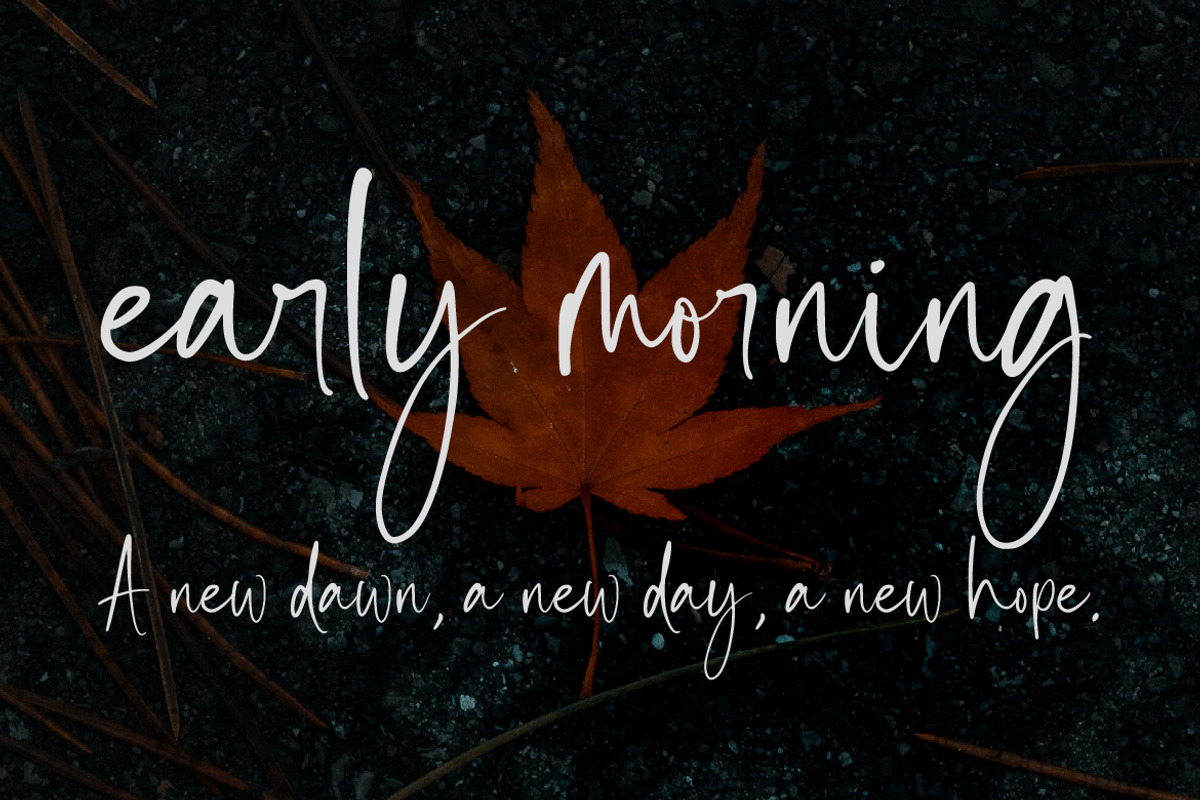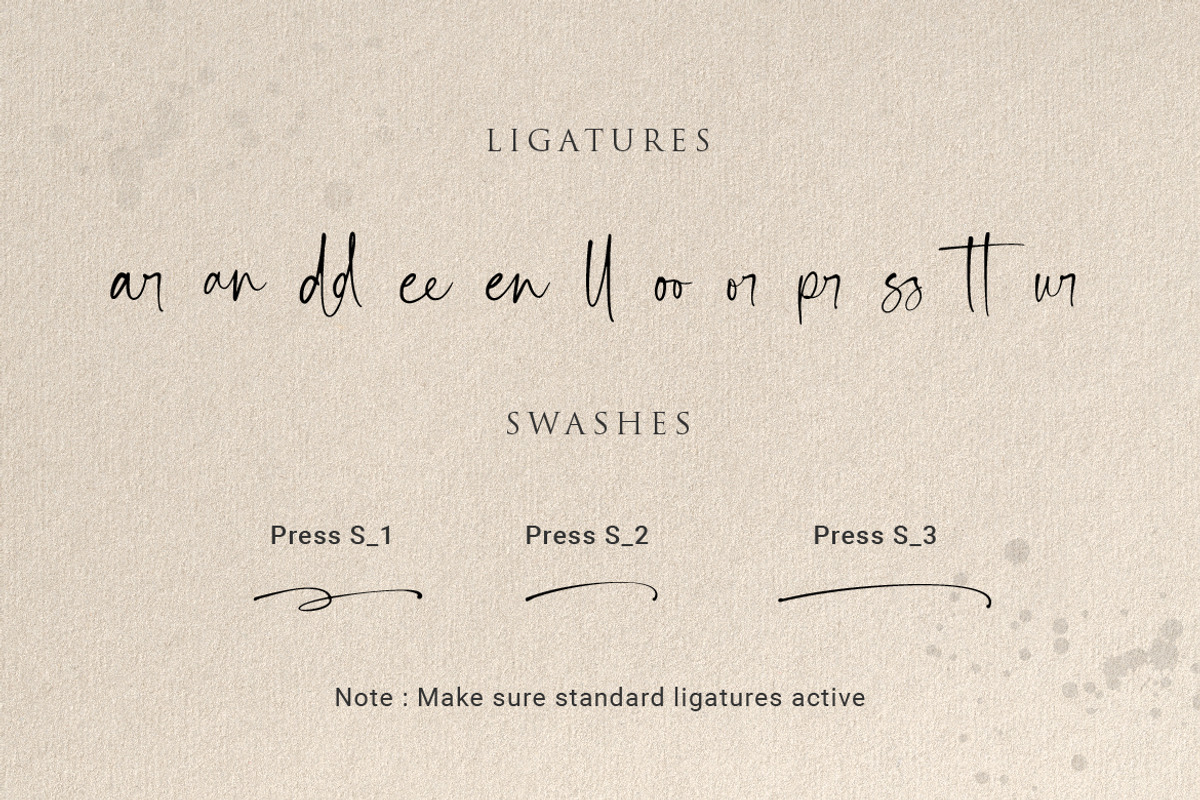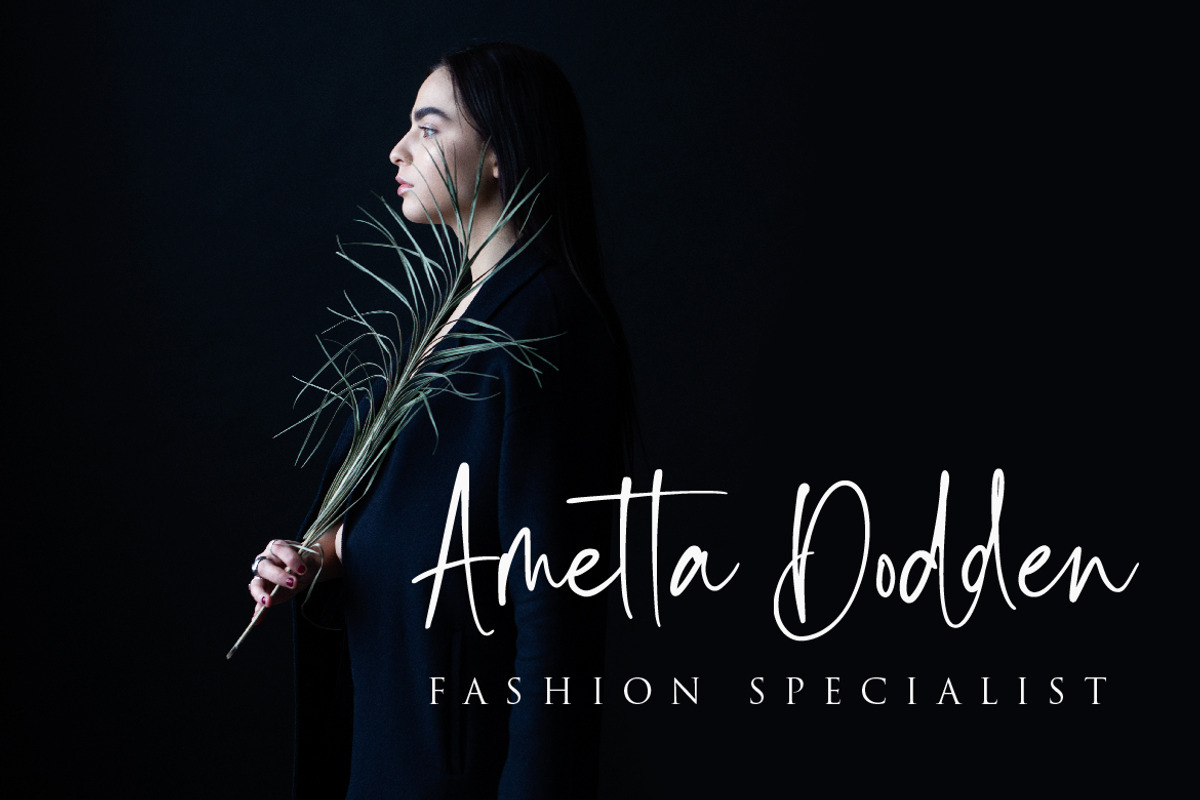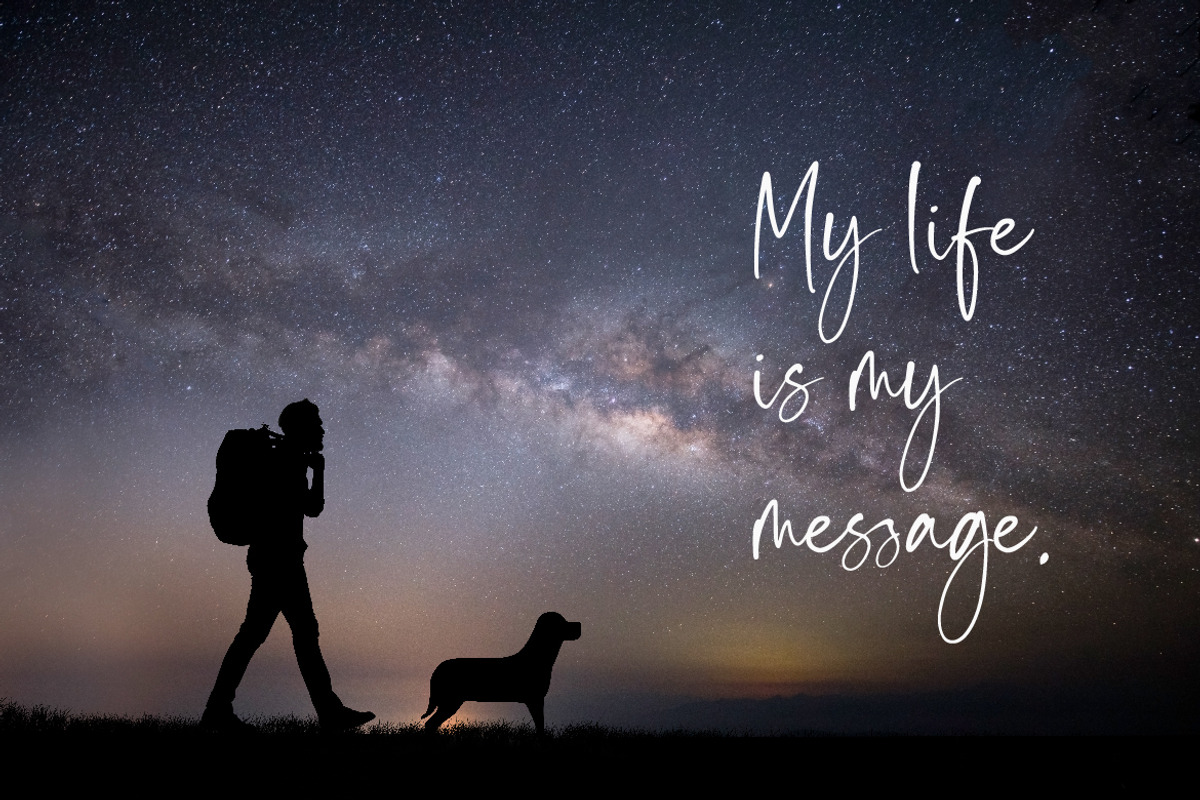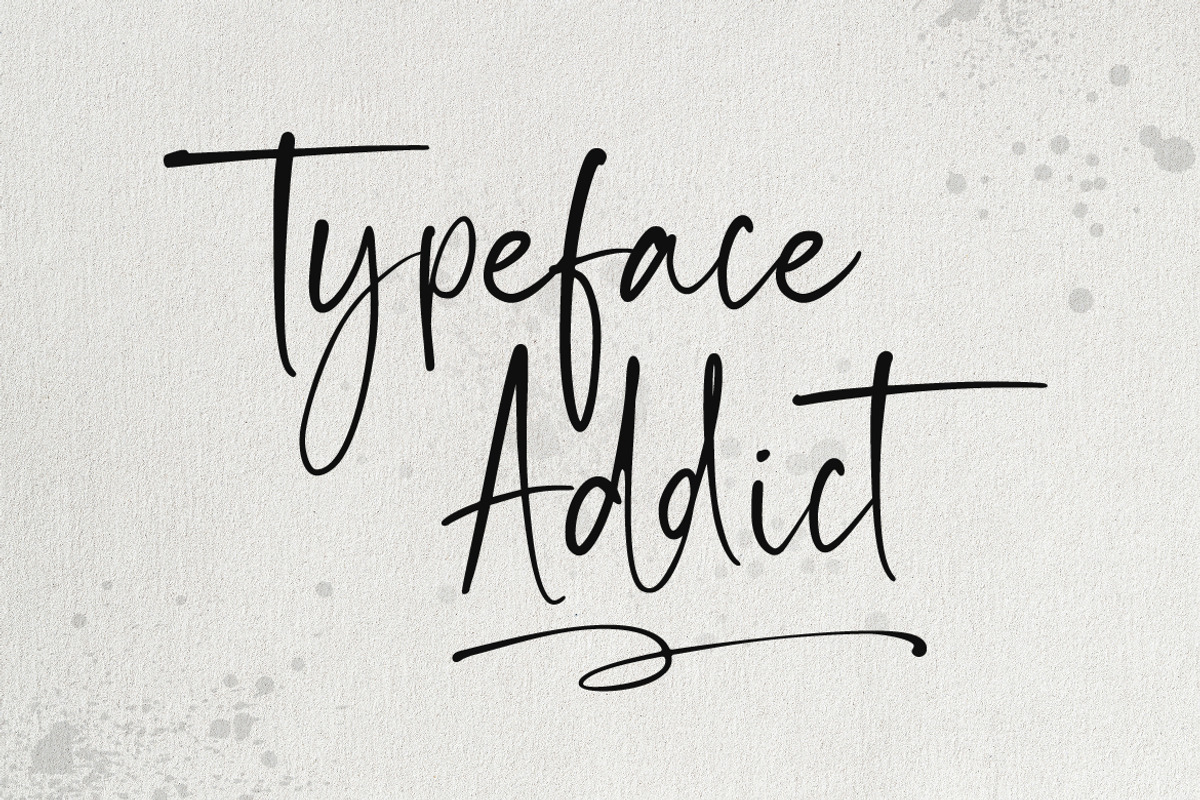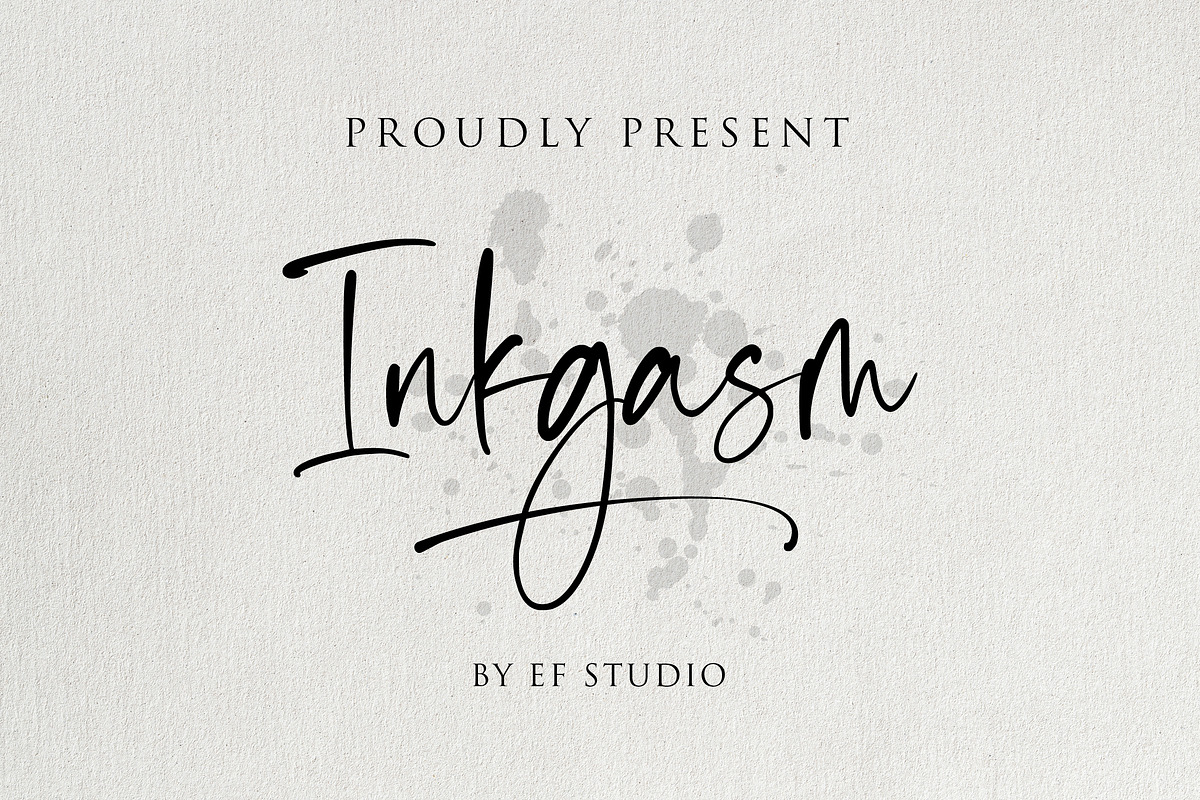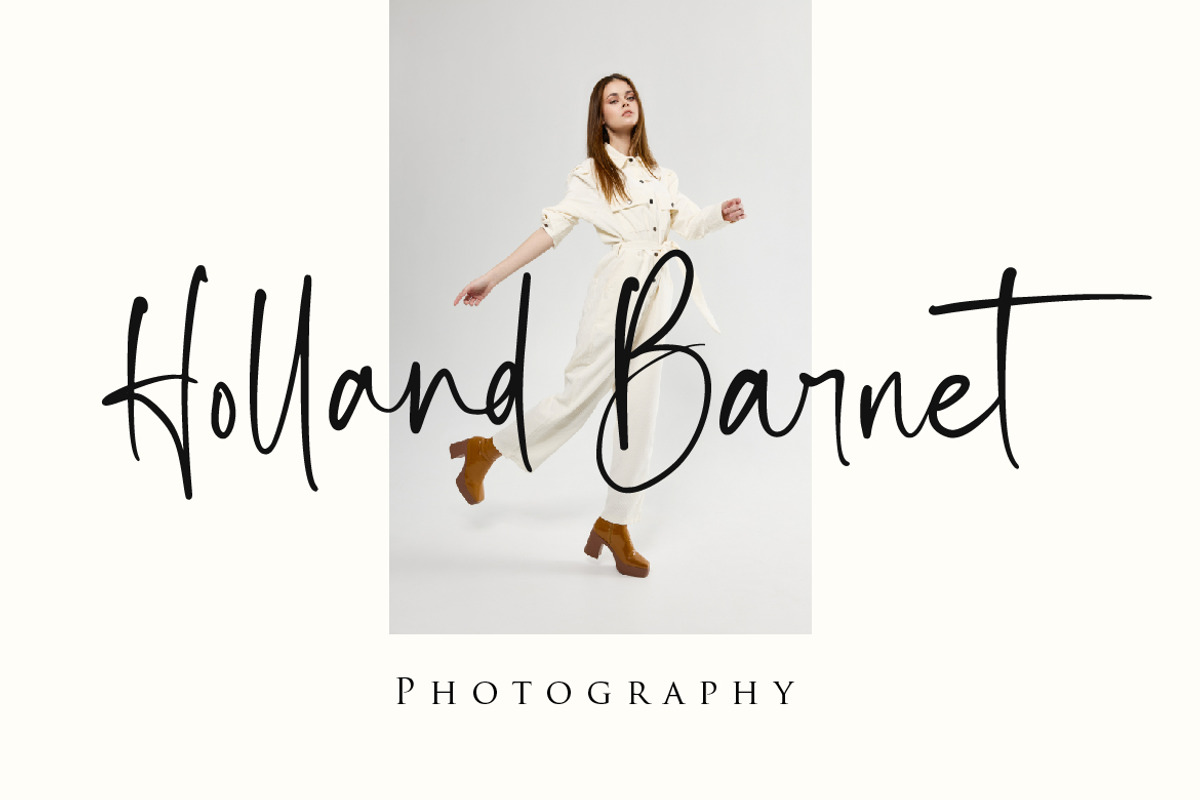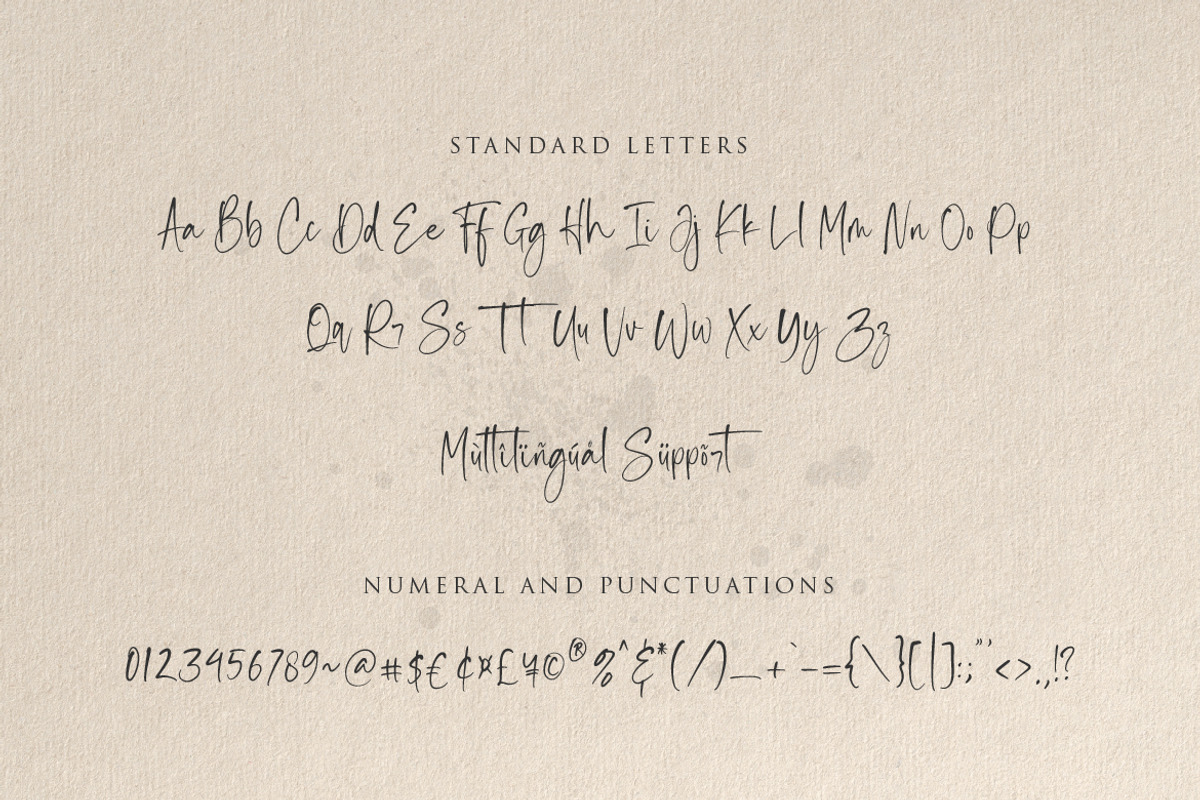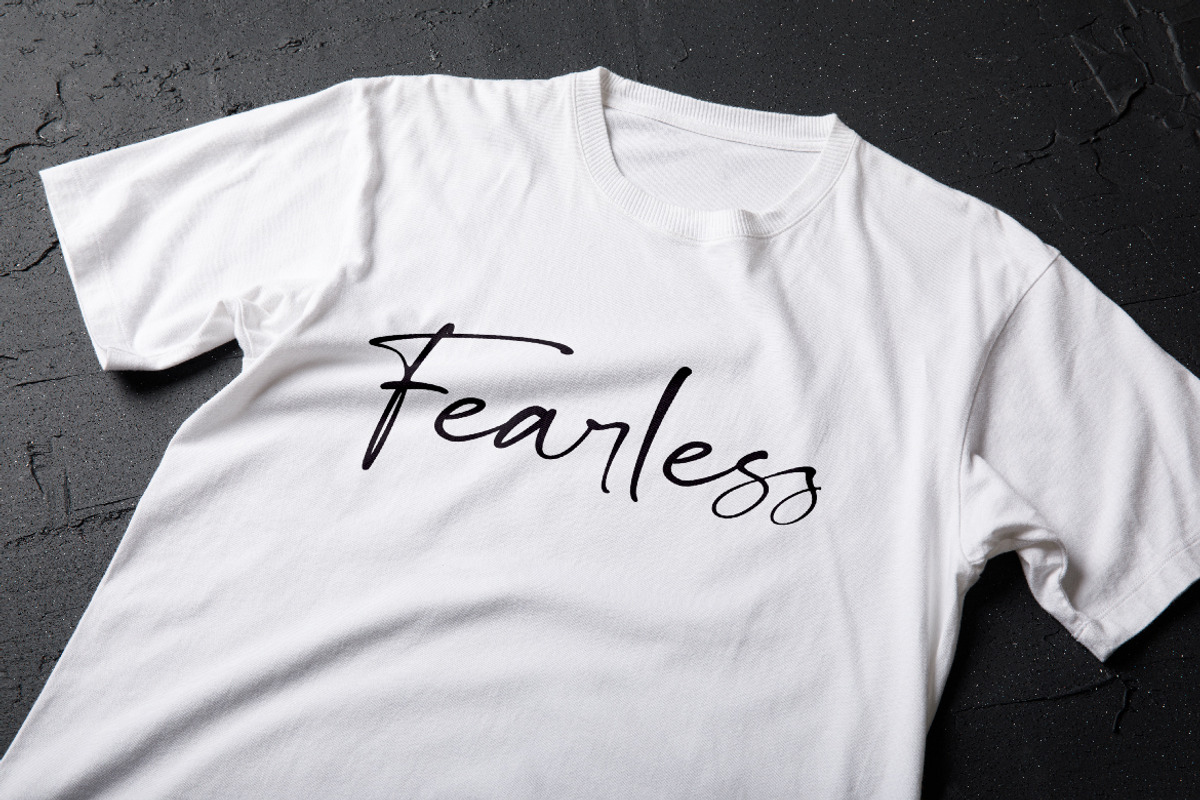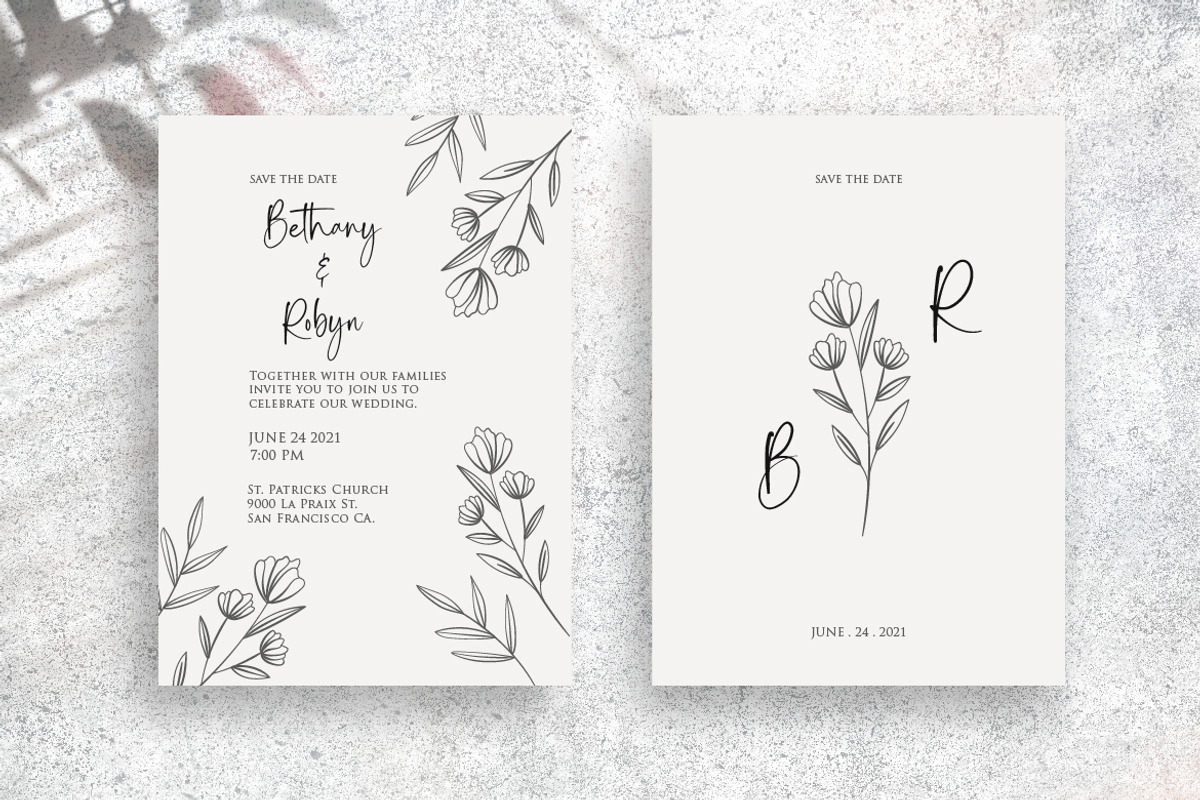
Inkgasm - Casual Script Font
Inkgasm is a casual script font that suitable for various project, like branding, invitation, merchandise, website, advertisement, magazine, and more. You will get full set of lowercase and uppercase letters, numerals and punctuation, multilingual symbols, ligatures and extra swashes.